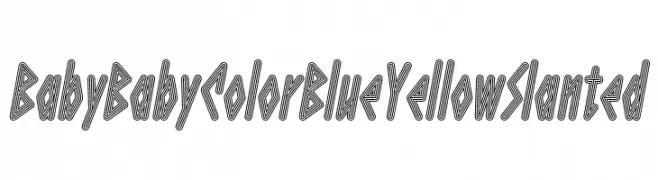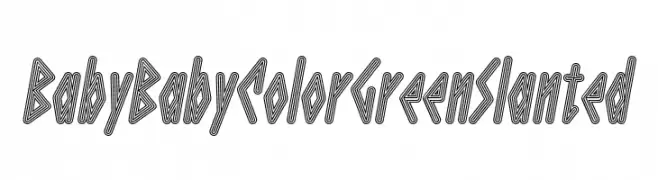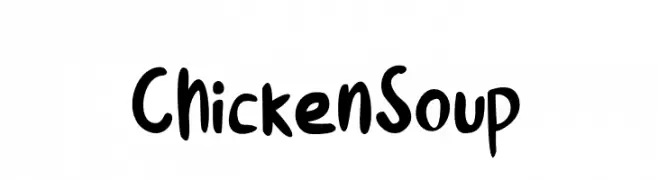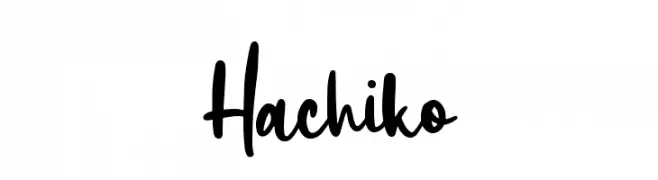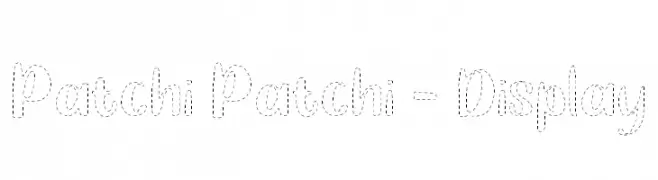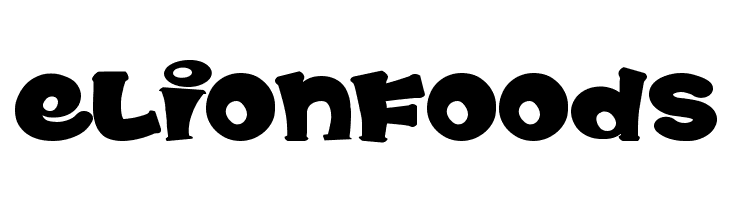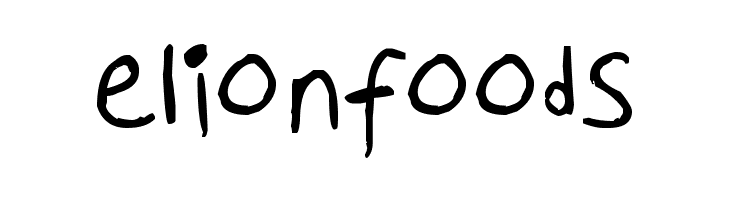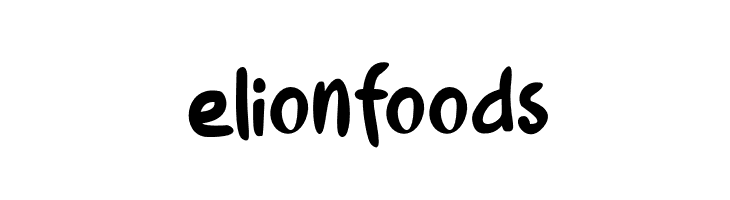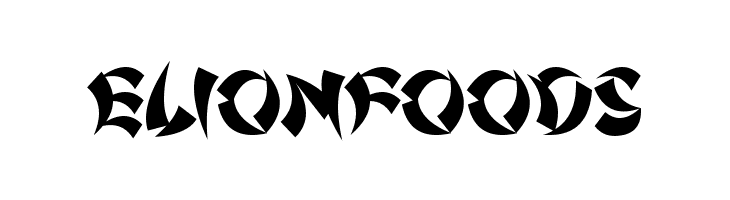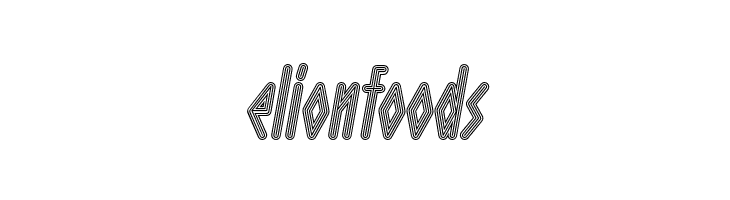
A playful, stitched-style font with a crafty, homemade feel.
A playful, bold font with whimsical, cartoon-like characters.
A playful, childlike font with bold, rounded strokes and an informal style.
A playful, bold font with a hand-drawn, whimsical style.
A playful, bold font with rounded, slightly irregular letterforms.
A bold, modern font with sharp, angular edges and artistic flair.
A playful, slanted, outlined font with a dynamic and bold appearance.
A playful, slanted font with outlined, layered characters and a modern geometric style.
A bold, playful handwritten font with dynamic strokes and a whimsical flair.
A bold, modern sans-serif font with clean lines and a strong presence.